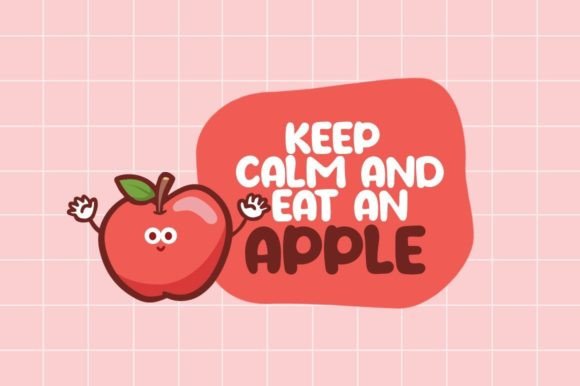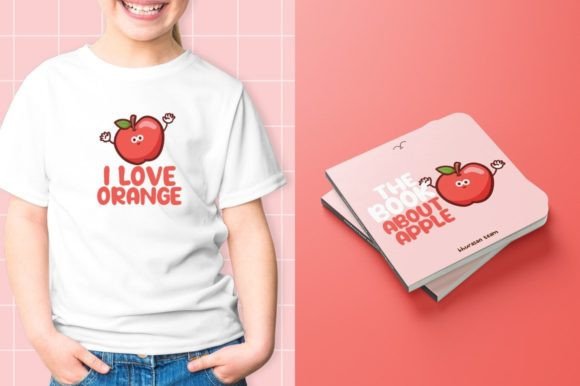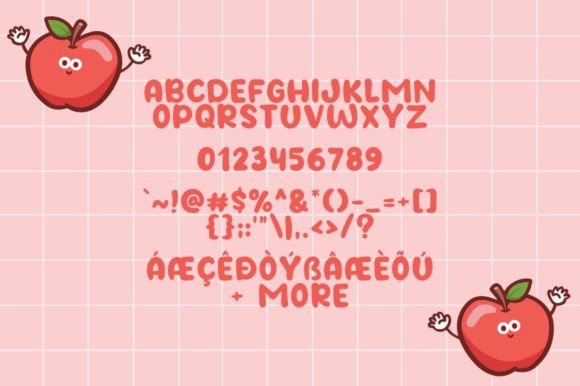
Introducing Apple Days Font: The Ultimate Playful Display Font
Are you a designer or crafter looking for a font that adds a playful touch to your creations? Look no further than Apple Days Font! This fun and cool display font is perfect for cartoon-related designs, children’s games, and any project that requires a dash of whimsy. In this article, we’ll dive into the features and benefits of Apple Days Font, and explore how it can elevate your designs to the next level.
What is Apple Days Font?
Apple Days Font is a display font designed to bring a sense of playfulness and fun to your designs. Its unique and quirky style makes it perfect for projects that require a lighthearted and carefree vibe. Whether you’re creating a logo, poster, or social media graphic, Apple Days Font is sure to grab attention and leave a lasting impression.
Key Features of Apple Days Font
- Playful and Fun Design: Apple Days Font features a unique and playful design that’s perfect for adding a touch of whimsy to your creations.
- Display Font: This font is specifically designed as a display font, making it perfect for headlines, titles, and short phrases.
- Cartoon-Related Designs: Apple Days Font is ideal for cartoon-related designs, children’s games, and other projects that require a playful touch.
- Easy to Read: Despite its playful design, Apple Days Font is easy to read, making it perfect for use in a variety of contexts.
- Versatile: Apple Days Font can be used in a range of projects, from digital designs to print materials.
Benefits of Using Apple Days Font
So why choose Apple Days Font for your designs? Here are just a few benefits of using this fun and playful font:
- Adds a Playful Touch: Apple Days Font adds a playful touch to your designs, making them more engaging and attention-grabbing.
- Perfect for Children’s Designs: This font is ideal for designs aimed at children, such as children’s games, books, and educational materials.
- Easy to Pair with Other Fonts: Apple Days Font is easy to pair with other fonts, making it perfect for use in a range of design contexts.
- High-Quality Design: Apple Days Font is designed to high standards, ensuring that your designs look professional and polished.
How to Use Apple Days Font in Your Designs
Using Apple Days Font in your designs is easy! Here are a few tips to get you started:
- Use it as a Headline Font: Apple Days Font is perfect for use as a headline font, adding a playful touch to your titles and headings.
- Pair it with Other Fonts: Experiment with pairing Apple Days Font with other fonts to create a unique and eye-catching design.
- Use it in Children’s Designs: Apple Days Font is ideal for use in children’s designs, such as children’s books, games, and educational materials.
- Experiment with Colors and Textures: Don’t be afraid to experiment with different colors and textures to add depth and interest to your designs.
| Font Name | Apple Days Font |
| Author | si.jalembe |
In conclusion, Apple Days Font is a fun and cool display font that’s perfect for adding a playful touch to your designs. With its unique and quirky style, this font is ideal for cartoon-related designs, children’s games, and any project that requires a lighthearted and carefree vibe. Whether you’re a designer or crafter, Apple Days Font is sure to become a go-to font in your collection.